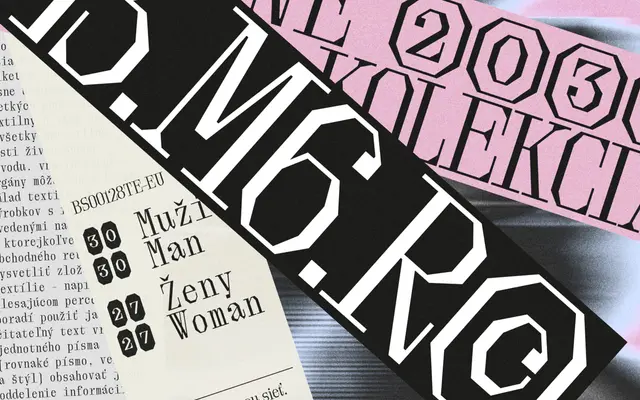
OT Brut
Off Type · Valerio Monopoli
A curveless, angular reworking of Bodoni by Valerio Monopoli, trading neoclassical elegance for rigid, brutalist construction across four styles including mono variants.
Where Bodoni relies on the tension between hairlines and thick strokes modulated by curves, OT Brut replaces all curves with straight angles, producing a high-contrast serif that reads as architectural rather than fashionable. Four styles cover proportional and monospaced versions in regular and italic, each carrying 502 glyphs with discretionary ligatures designed to interlock and compose. The mono styles also include coding abbreviations, making the family useful across editorial, poster and interface contexts.
A high-contrast serif in the Bodoni/Didone tradition, but stripped of curves entirely in favour of angular, constructed letterforms that the foundry explicitly frames as a brutalist reimagining of neoclassical models.